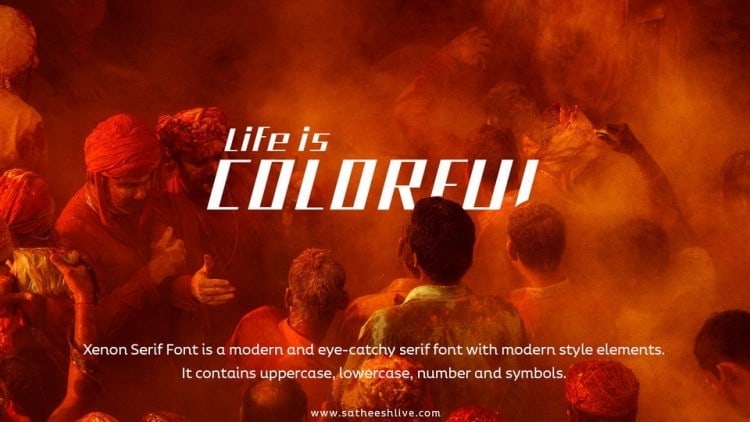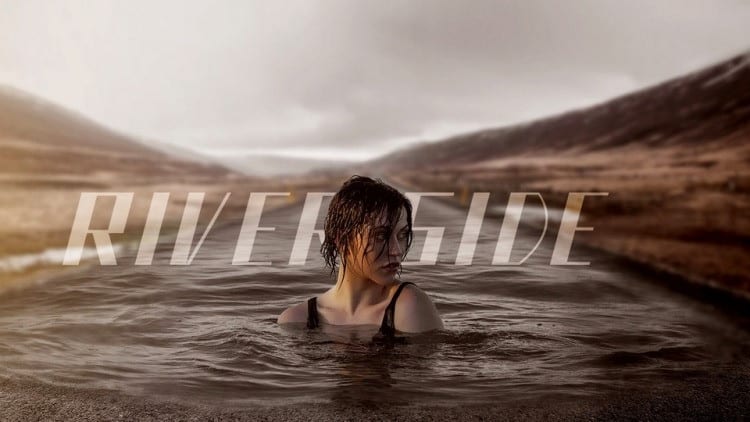
Xenon Display Font
Xenon Display Font is a bold and authentic sans serif display font package by Satheesh Chandran. Xenon (Greek: ξένος – xenos) means “foreigner, guest”. Xenon is modern font that is futuristic and minimal and come with regular, bold versions.
Xenon will be perfect for many projects: fashion, magazines, logo, branding, headlines, short text, posters, ads and more.